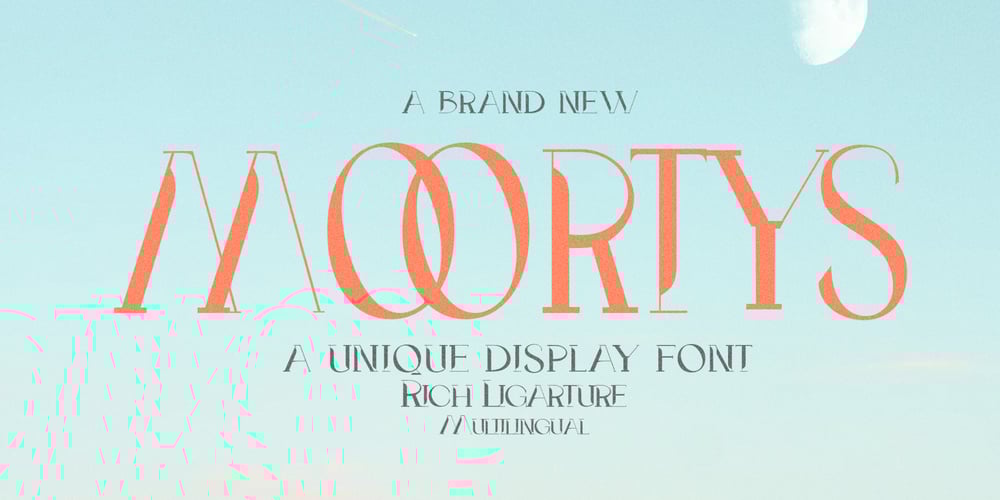
Moortys Font Family was designed by Mohamad Farhan Ramadhan and published by Mofr24. Moortys contains 6 styles and family package options. Introducing Moortys, a unique display font boasting sleek, modern aesthetics. Available in six versatile font families: Expanded, Expanded Italic, Regular, Italic, Tall, and Italic Tall. Perfect for branding, typography, gaming, artcraft, and diverse font assets. Elevate your designs with Moortys’ distinctive charm and versatility.–Uppercase